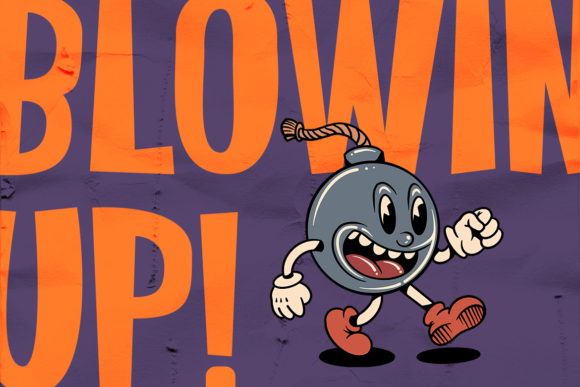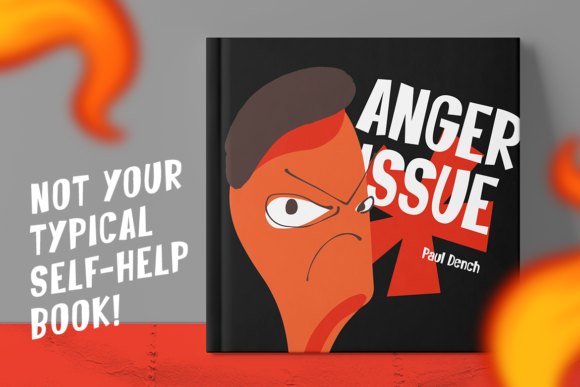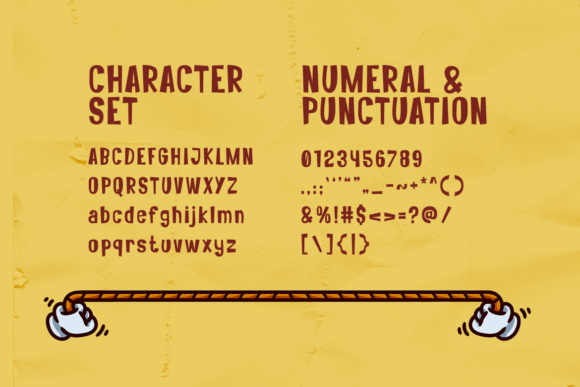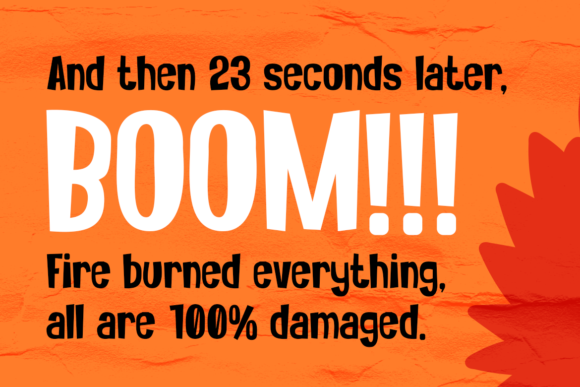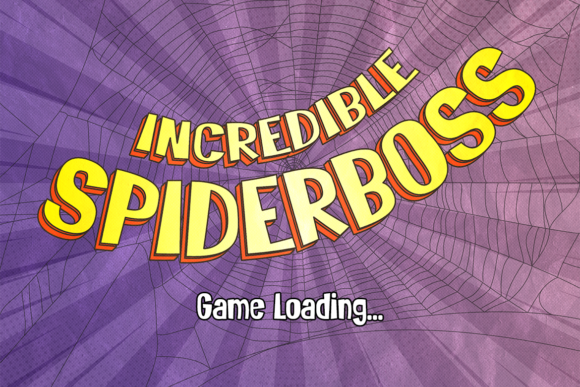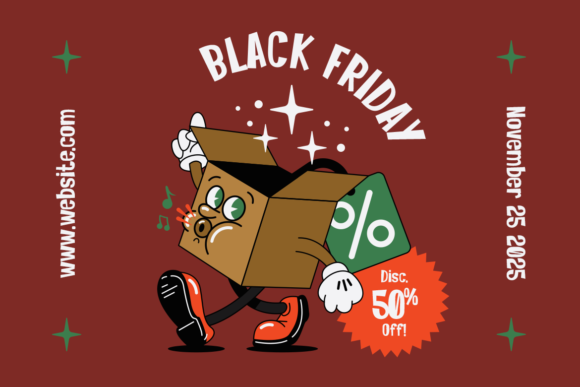
Unleash Your Creativity with Brute Force Font: The Ultimate Display Font for Fun and Playful Designs
Are you tired of using the same old fonts for your designs? Do you want to add a touch of fun and playfulness to your creations? Look no further than Brute Force Font, a cool, chunky lettered, and fun display font that’s perfect for cartoon designs, playful creations, and anything related to fun and joy.
What is Brute Force Font?
Brute Force Font is a unique and eye-catching display font that’s designed to make a statement. Its chunky letters and bold lines give it a rugged and playful look that’s sure to grab attention. Whether you’re designing a logo, a poster, or a social media graphic, Brute Force Font is the perfect choice for adding a touch of fun and personality to your design.
Key Features of Brute Force Font
- Chunky Letters: Brute Force Font features thick, chunky letters that are perfect for creating bold and eye-catching designs.
- Playful Look: The font’s rugged and playful look makes it perfect for cartoon designs, playful creations, and anything related to fun and joy.
- Versatile: Brute Force Font can be used for a wide range of design projects, from logos and posters to social media graphics and more.
- Easy to Read: Despite its bold and chunky design, Brute Force Font is easy to read, making it perfect for use in a variety of design projects.
Uses for Brute Force Font
Brute Force Font is a versatile font that can be used for a wide range of design projects. Here are just a few ideas to get you started:
- Cartoon Designs: Brute Force Font is perfect for creating fun and playful cartoon designs, from character logos to animated videos.
- Playful Creations: Whether you’re designing a playful poster, a fun social media graphic, or a whimsical illustration, Brute Force Font is the perfect choice.
- Logos: Brute Force Font can be used to create bold and eye-catching logos that are sure to grab attention.
- Posters: The font’s bold and chunky design makes it perfect for creating eye-catching posters that advertise events, products, or services.
- Social Media Graphics: Brute Force Font can be used to create fun and engaging social media graphics that are sure to stand out in crowded feeds.
Tips for Using Brute Force Font
Here are a few tips for using Brute Force Font in your designs:
- Use it Boldly: Brute Force Font is designed to be used boldly, so don’t be afraid to experiment with different sizes and colors.
- Pair it with Other Fonts: Brute Force Font can be paired with other fonts to create a unique and eye-catching design.
- Experiment with Colors: The font’s bold and chunky design makes it perfect for use with bright and bold colors.
Brute Force Font is a fun and playful display font that’s perfect for adding a touch of personality to your designs. Its chunky letters and bold lines give it a rugged and playful look that’s sure to grab attention. Whether you’re designing a logo, a poster, or a social media graphic, Brute Force Font is the perfect choice for creating fun and engaging designs. So why wait? Download Brute Force Font today and start unleashing your creativity!